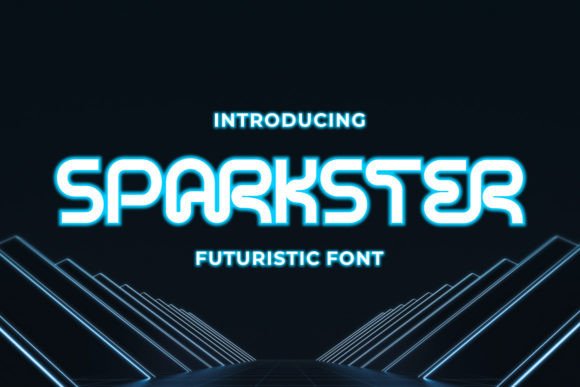
Welcome to the futuristic realm of Sparkster, the font that will transport your designs into an era of innovation and technological wonder. Inspired by the sleek lines and vibrant energy of modern digital technology, Sparkster is a display font that oozes boldness and sleekness, ready to elevate your projects to the next level.
With its sharp angles and captivating curves, Sparkster is a visual masterpiece that commands attention and leaves a lasting impression. This font family boasts both uppercase and lowercase characters, complemented by a range of OpenType features like alternates and ligatures. These elements provide unparalleled customization, allowing you to tailor Sparkster to perfectly match your unique design vision.
But Sparkster is more than just a visually stunning font; it's a gateway to the future. Its bold and sleek appearance makes it the perfect choice for logos, covers, posters, branding, UI, titles, and beyond. Imagine the impact Sparkster will make on your tech company's logo, creating a visual identity that screams innovation and progress. Or envision the awe-inspiring covers and posters you can design, capturing the essence of a futuristic world. The possibilities are limitless.
Unleash your creativity and let Sparkster take your designs to new heights. Its futuristic flair will transform your branding and packaging projects into works of art, leaving a lasting impression on your audience. Create album covers that transport listeners to another dimension, posters that ignite imaginations, and social media graphics that radiate a high-tech vibe. Sparkster is the key to unlocking a world of design possibilities that transcend the ordinary.
Don't settle for ordinary fonts that blend into the background. Embrace the future with Sparkster and watch your designs come alive with innovation and technological prowess. Stand out from the crowd and make a statement that resonates with the modern world.